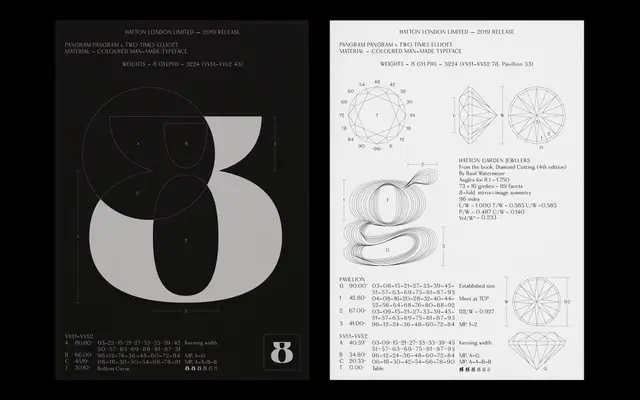
Hatton
Pangram Foundry · Mat Desjardins
A humanist serif drawn from the weathered signage and shopfronts of London's Hatton Garden jewellery quarter, available in nine weights with true italics and variable font support.
Designed by Mat Desjardins in collaboration with London studio Two Times Elliott and later extended by type designer Morgane Vantorre, Hatton takes its forms from the hand-painted signs and ornate facades of Clerkenwell and Hatton Garden. The family spans nine weights from Thin to Black, each with a matching italic, and includes a variable cut alongside a rich set of OpenType features: vintage alternates, discretionary ligatures, old-style figures and a diamond-shaped eight. Its proportions and adjusted contrast suit branding, packaging and editorial work where a sense of craft and quiet opulence is required.
Pangram classify Hatton explicitly as a humanist serif; its forms are drawn from the hand-painted signage and ornate shopfronts of London's Hatton Garden, lending organic warmth and refined imperfection to the letterforms.